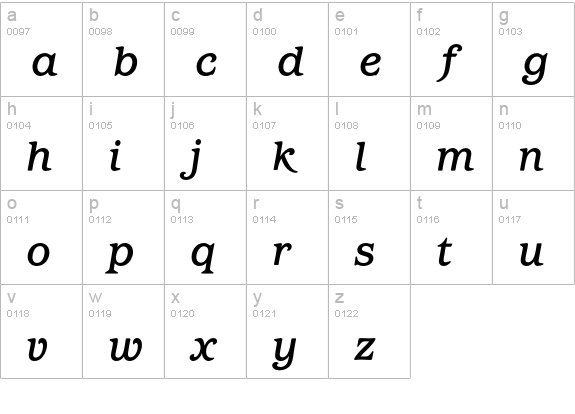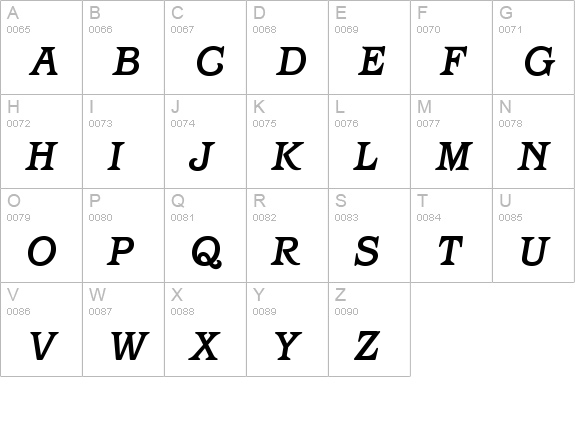
Barcelona* Medium Italic is a balanced, medium-weight, italic variant in the Barcelona* typeface family \xE2\x80\x94 well suited to sub-headlines, navigation, and balanced editorial work.
Barcelona Medium Italic is a sophisticated and contemporary font that exudes elegance and style. Its medium weight strikes the perfect balance between readability and flair, making it ideal for a wide range of design projects. The italicized style adds a touch of dynamism and movement, giving your text a modern edge. What sets Barcelona apart is not only its sleek design, but also its versatility. Whether you're working on branding, editorial design, or web projects, this font is sure to make a statement. Its clean lines and subtle curves create a harmonious flow, enhancing the overall visual appeal of your work. And the best part? Barcelona Medium Italic is completely free to download at FontsMarket.com. You can easily access this high-quality font and elevate your designs without any cost. So why wait? Give your projects a touch of sophistication with Barcelona Medium Italic today.